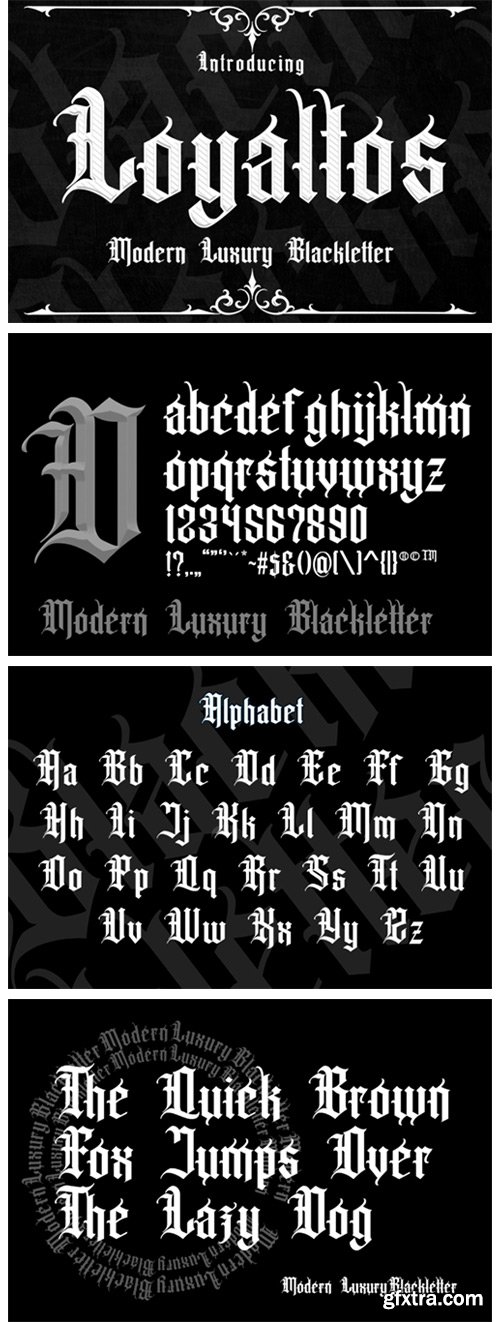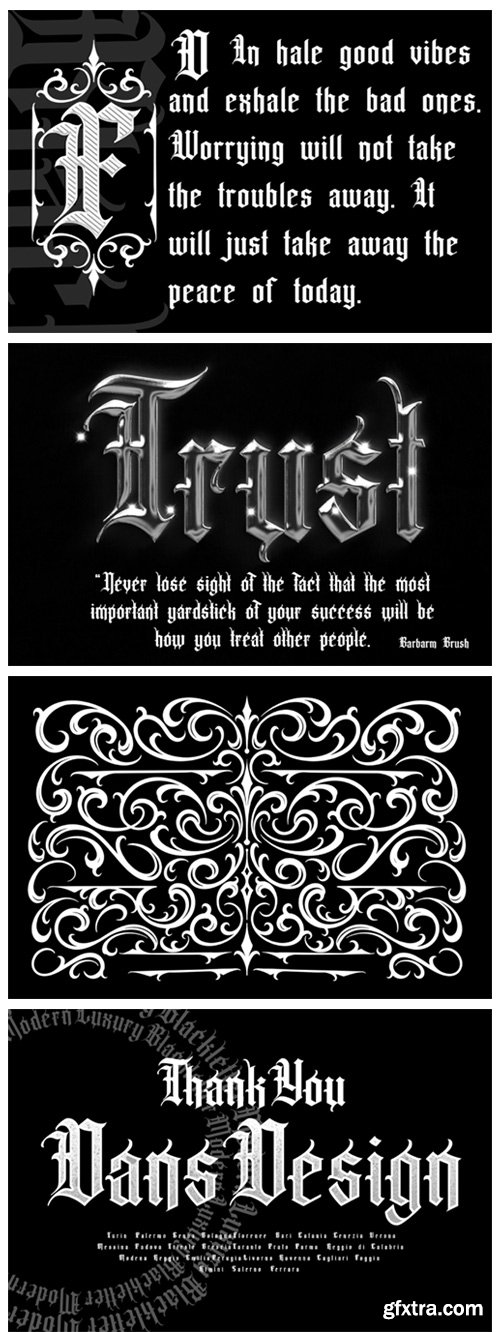
Loyaltos Font Font
Loyaltos is an authentic, victorian blackletter font. It has a vintage feel, and as a result, it matches a wide variety of designs. Fall in love with its bold, creative style, and use it for your next creative project!